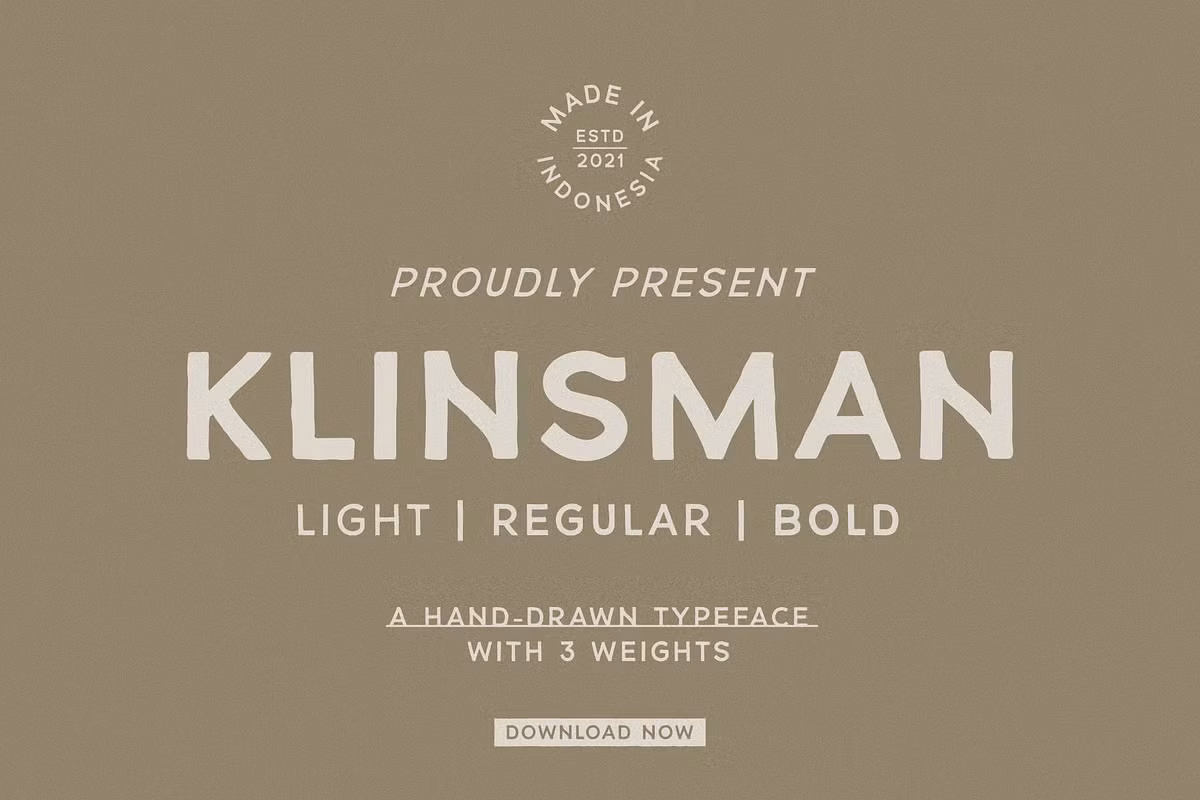
KLINSMAN Font Free Download is a bold and rugged hand-drawn typeface that brings raw personality and artistic flair to your designs. With its imperfect lines, textured strokes, and authentic handcrafted feel, KLINSMAN is perfect for posters, branding, album covers, apparel, vintage packaging, and any creative project that calls for an edgy, handmade touch.
Inspired by brush lettering and DIY design aesthetics, KLINSMAN Font Free Download delivers a unique and expressive typographic style. It’s a great choice for designers who want to add character and grit to their visuals, while still maintaining clarity and impact.
Whether you're designing for music, streetwear, or artisan products, KLINSMAN stands out with its rebellious yet approachable vibe. It pairs well with clean sans-serifs to create striking contrast or can be used on its own as a bold statement.